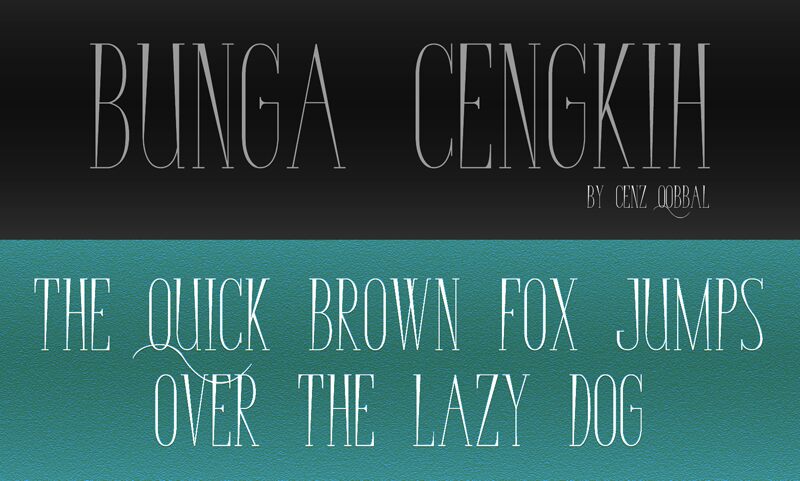
Bunga Cengkih Random by Cenz Qobbal is a free experimental display font with towering narrow letters and extreme shifts between hairline and heavy strokes. Its stretched proportions, abrupt wedges, and sliced-looking joins create a tense fashion-editorial silhouette, with curves that seem pulled almost to breaking point.
It is most convincing on fashion magazine covers, runway campaign graphics, and perfume packaging, where the severe vertical forms can supply a cool, theatrical title. In music posters and gallery event identities, the letters can merge with cropped portrait photography or long architectural shadows, turning the typography into part of the image rather than a separate caption.